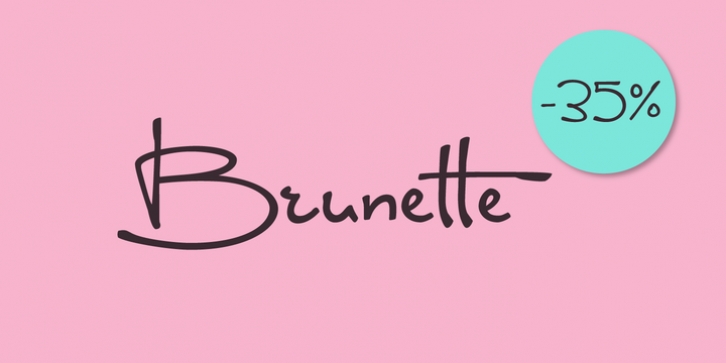
The Brunette font was created with the sole purpose to serve companies that want to express character, emotion and personal touch through their logotypes (think Bakeries, Juice Bars, Cafes, Jewelry stores, etc.)
The font was made entirely from scratch (handwritten letters on paper), which were then vectorized and tweaked to gain consistency. The charm of Brunette is in its irregularity and resemblance to a real handwriting. The font is perfect for businesses that want to convey a casual and organic image and make their products more human and approachable.